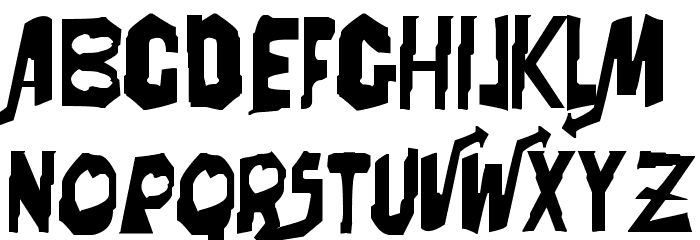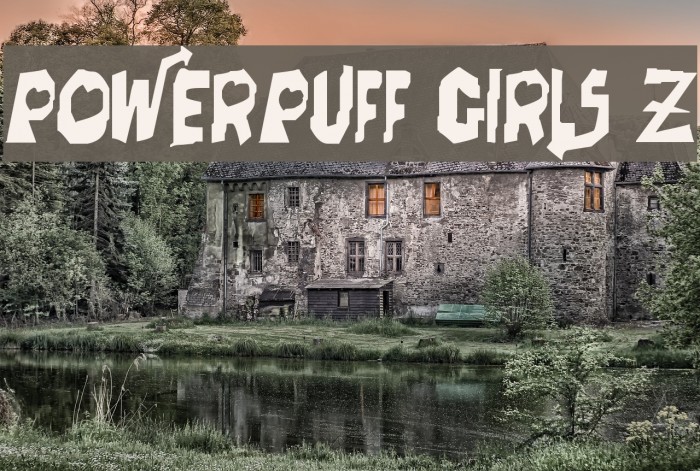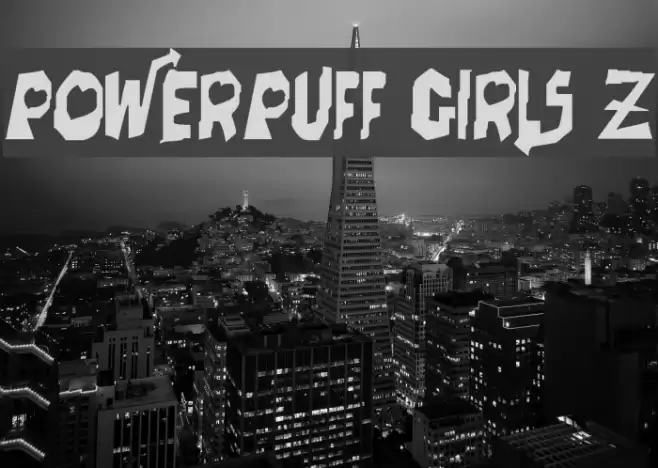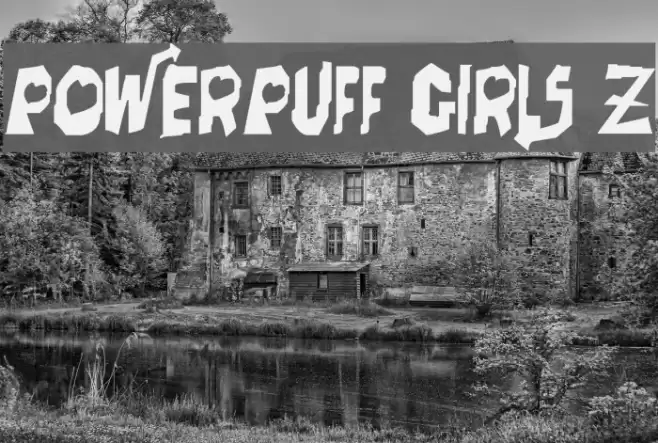
Powerpuff Girls Z Font
This font features a bold, angular design with a playful and dynamic appearance. The characters are heavily stylized, with sharp edges and a slightly irregular form that gives them a lively, cartoonish feel. The uppercase letters are particularly striking, with exaggerated proportions and a strong presence. The font lacks lowercase letters and numbers, focusing instead on a unique set of uppercase characters and special symbols. Its boldness and distinctive style make it ideal for eye-catching designs.
A bold, angular font with a playful, cartoonish style.
- Proposed Projects: Ideal for comic book titles, children's book covers, playful branding, and animated series logos.
- Overall Style: Playful, Cartoonish